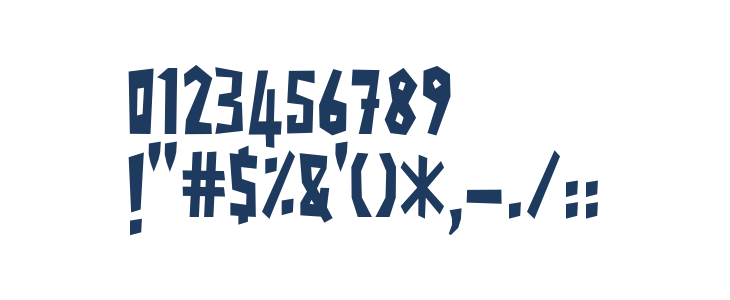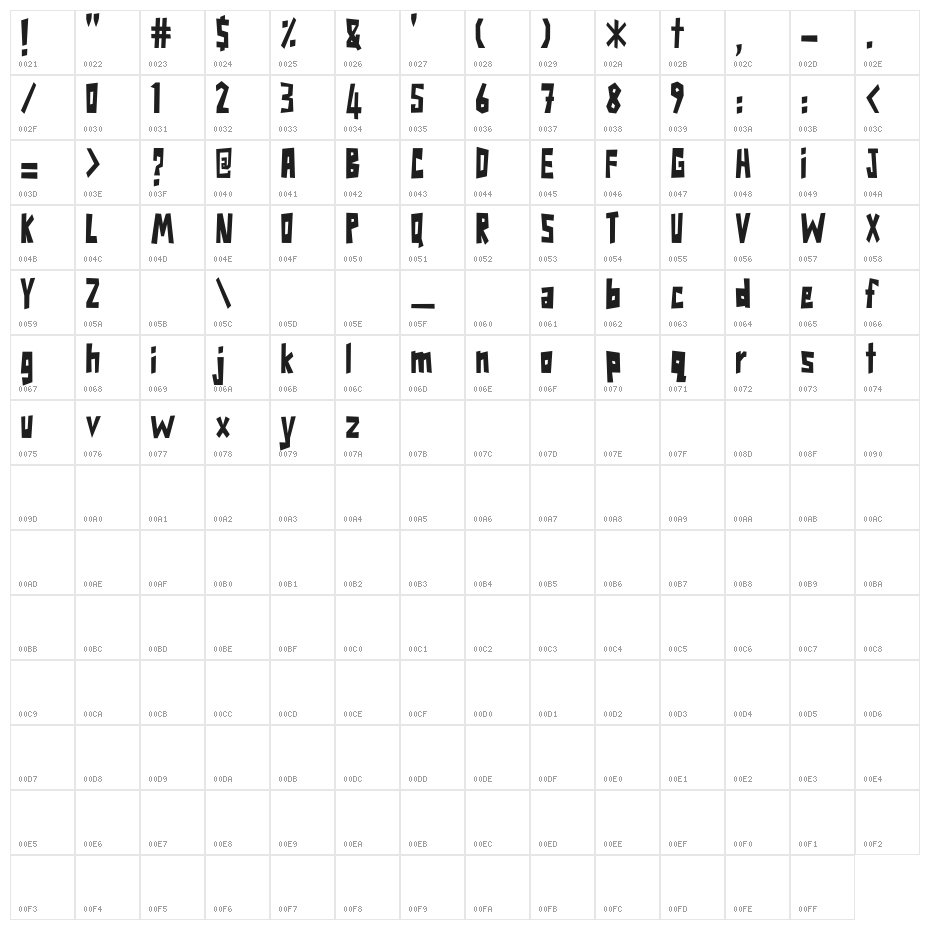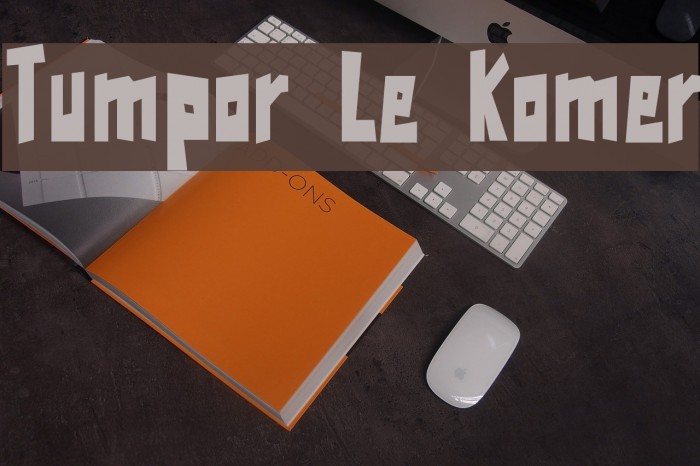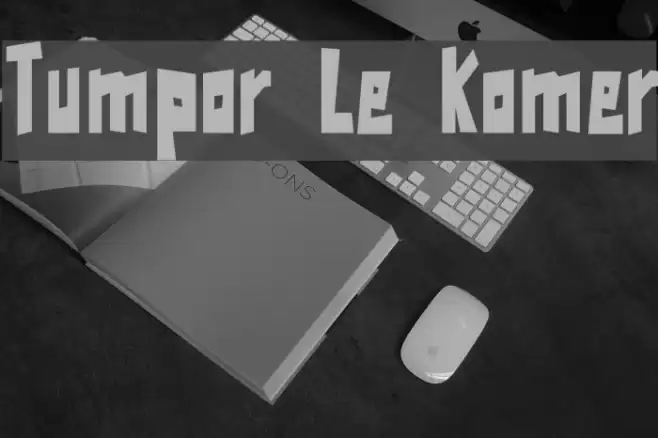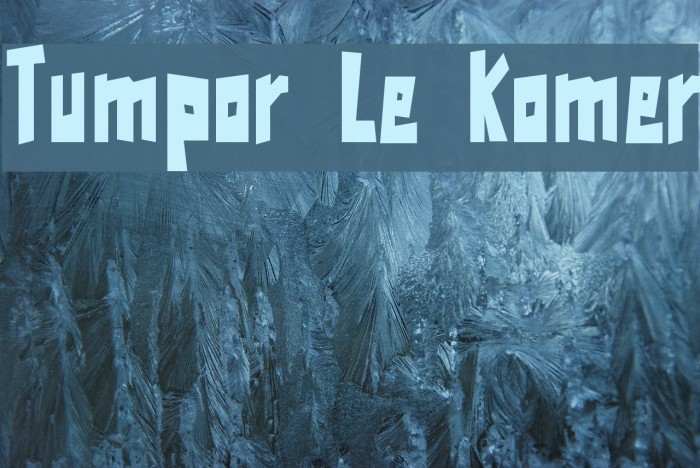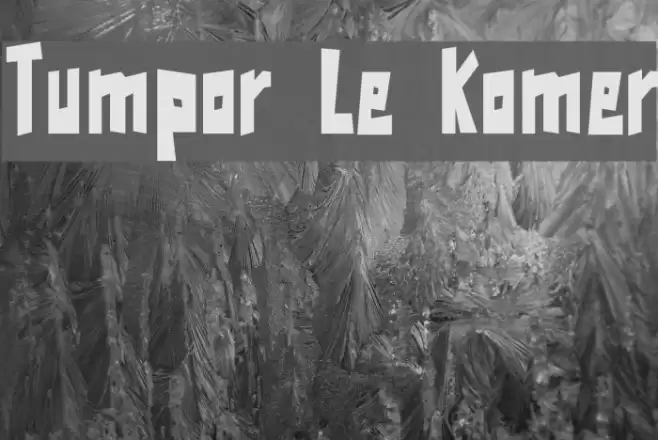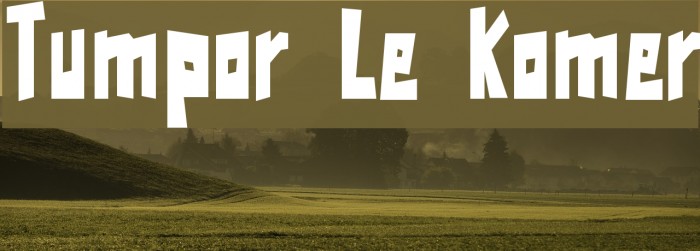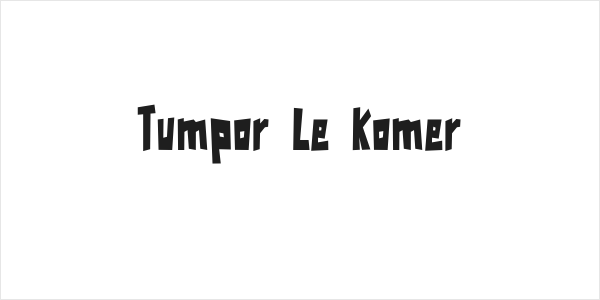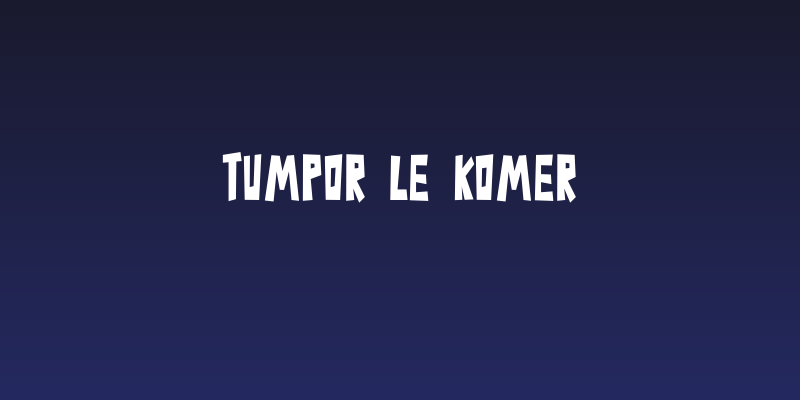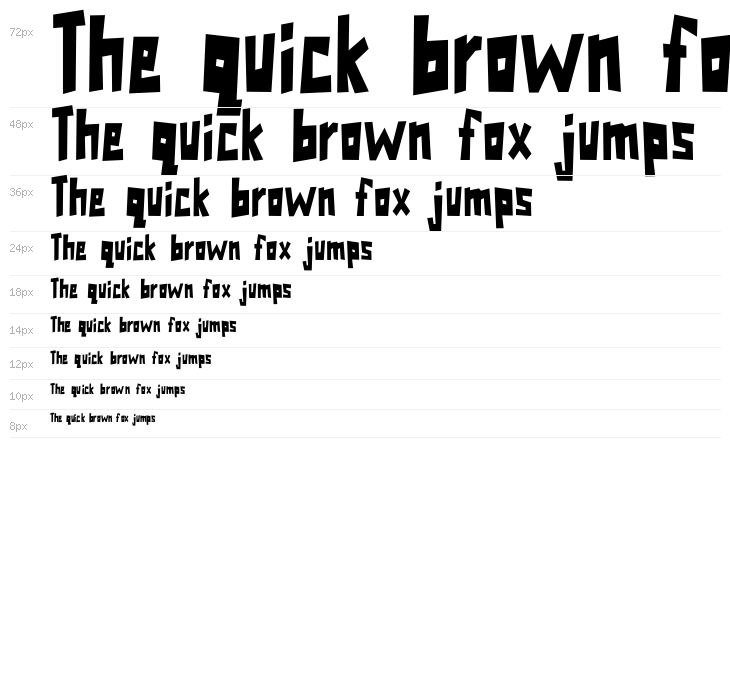
Tumpor Le Komer Font
Tumpor Le Komer Description
This font features a bold and dynamic design with a distinctly angular and geometric style. The characters are crafted with sharp edges and varying stroke widths, giving it a unique and eye-catching appearance. The uppercase letters are particularly striking, with a strong presence that commands attention. The lowercase letters maintain the same angular aesthetic, providing consistency throughout the typeface. Numbers and special characters are designed to match the overall style, ensuring a cohesive look. This font is ideal for projects that require a bold and unconventional typeface to make a statement.